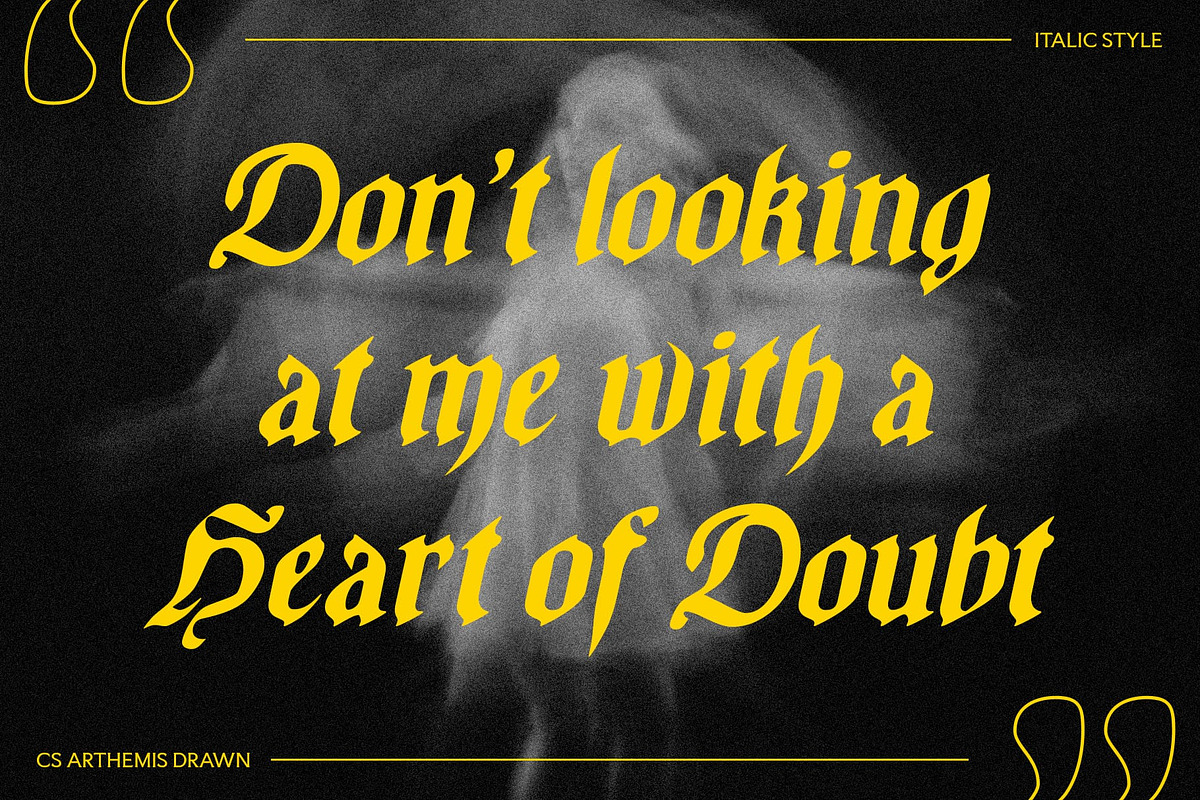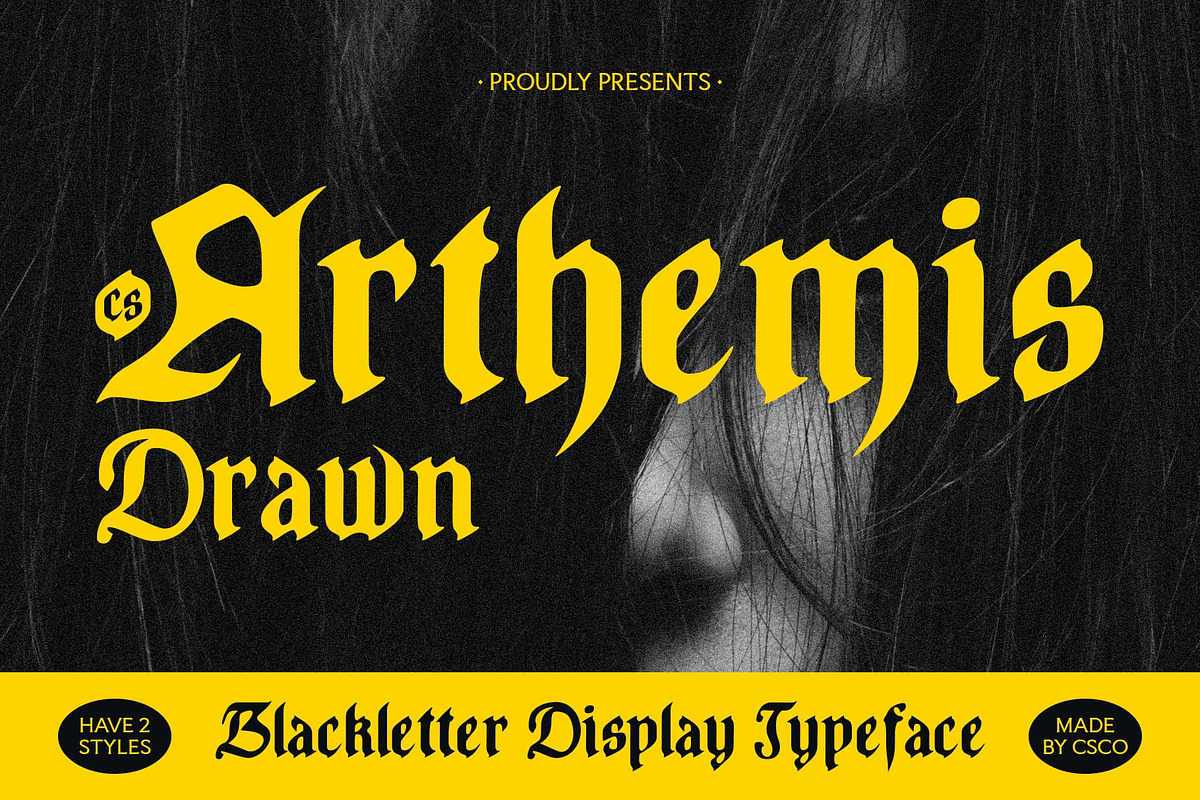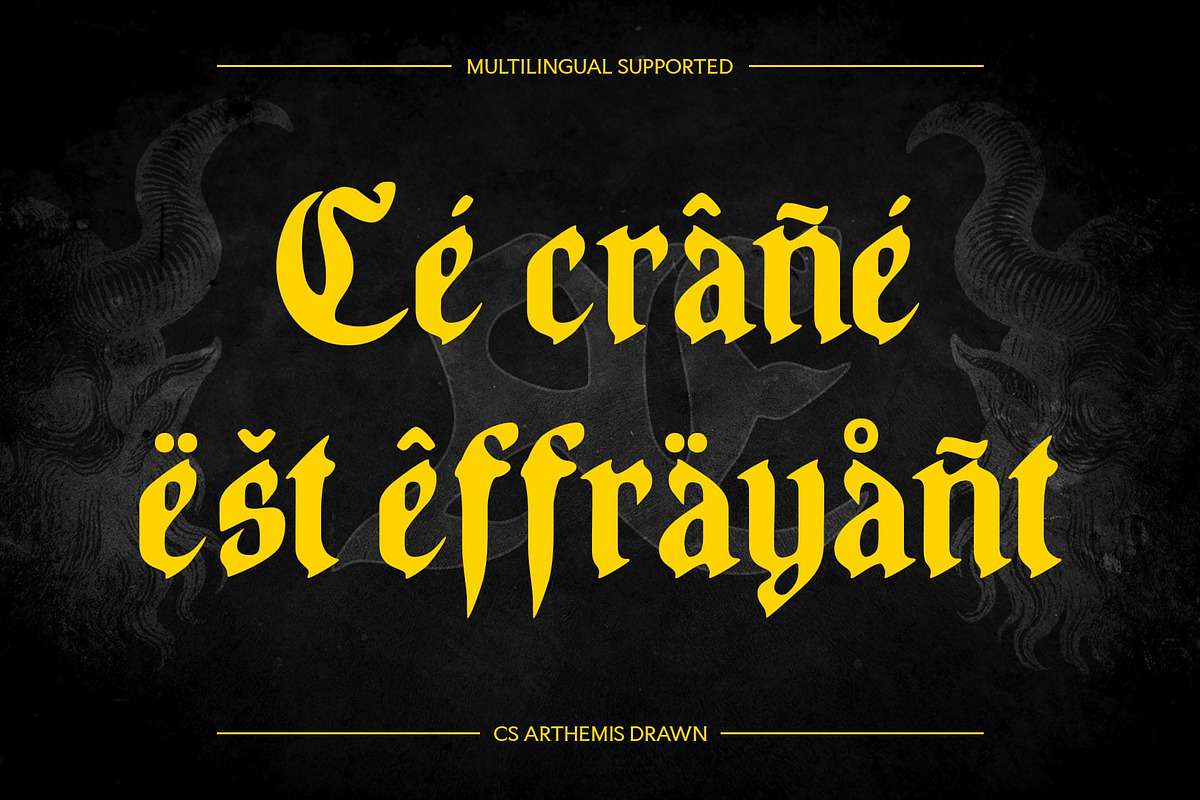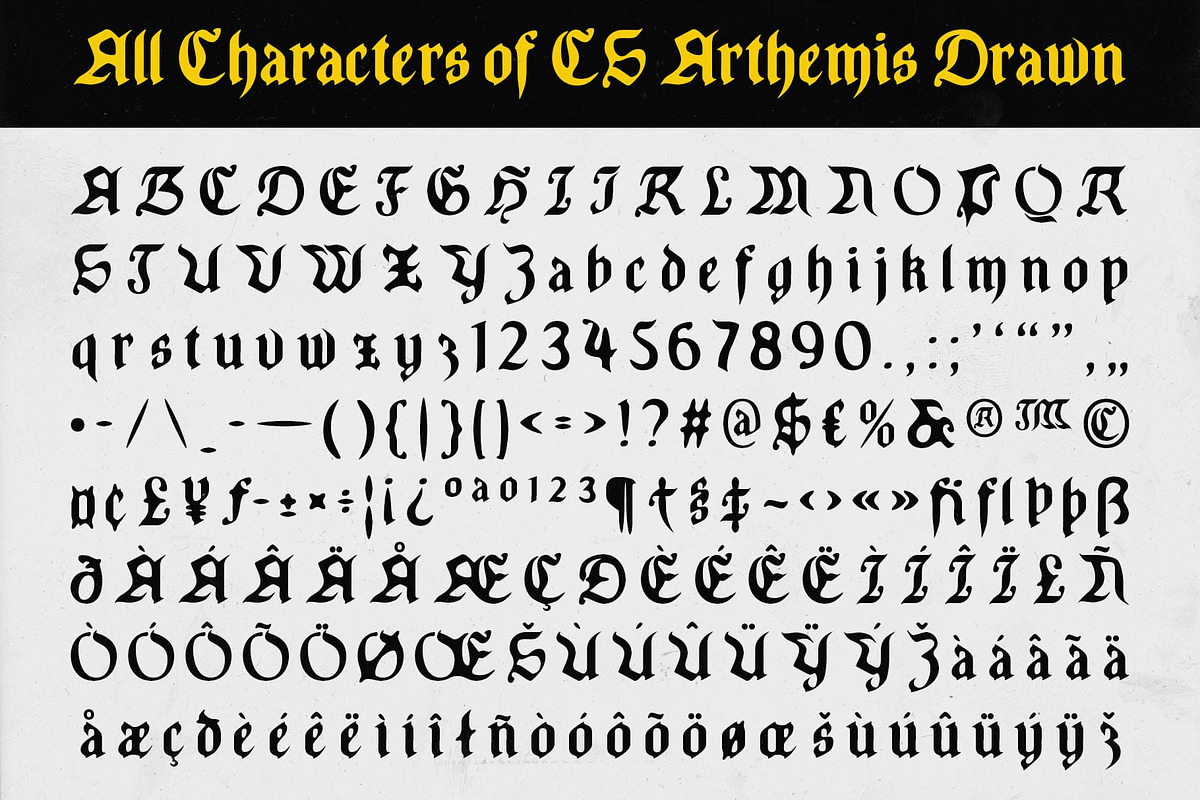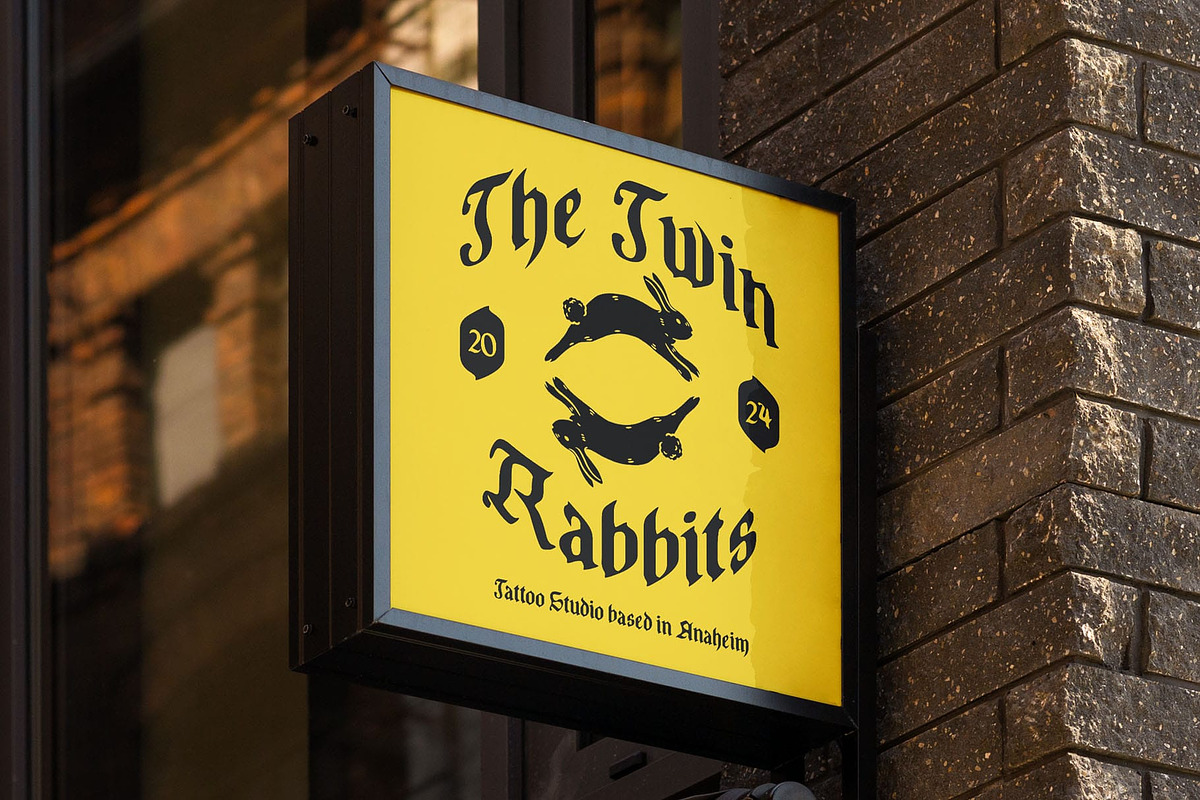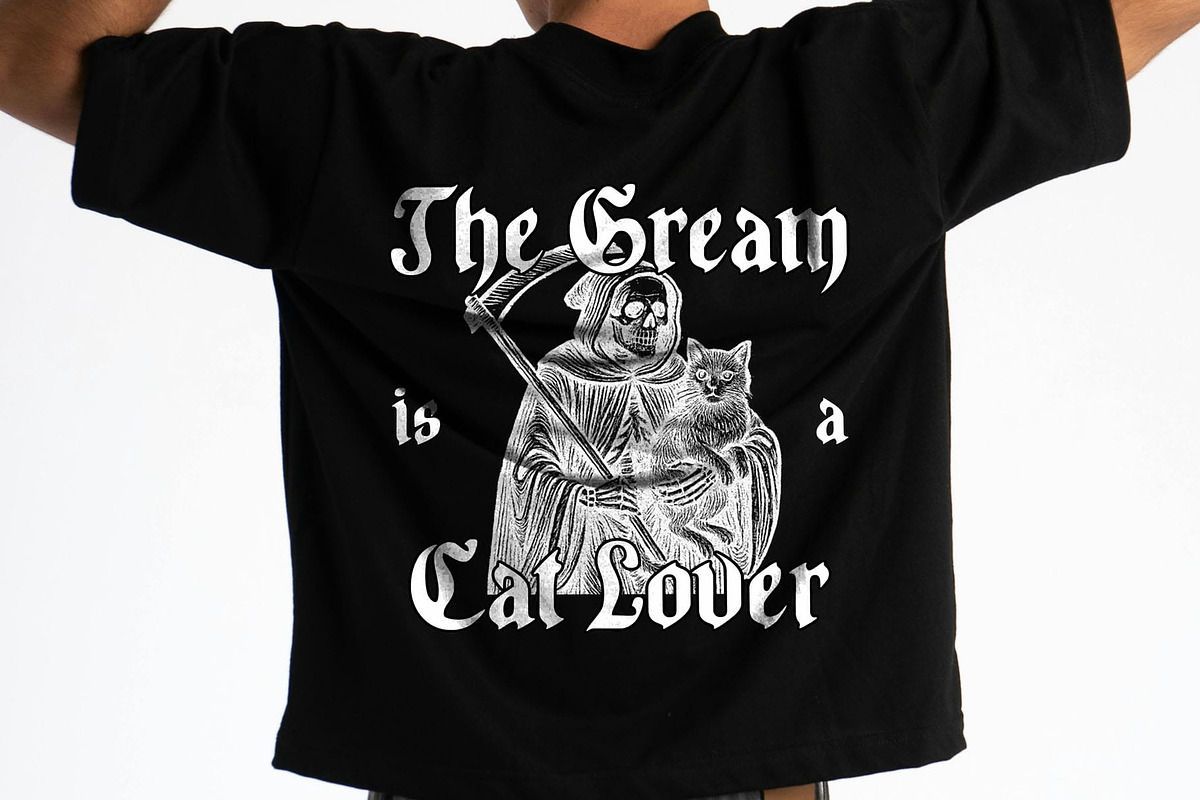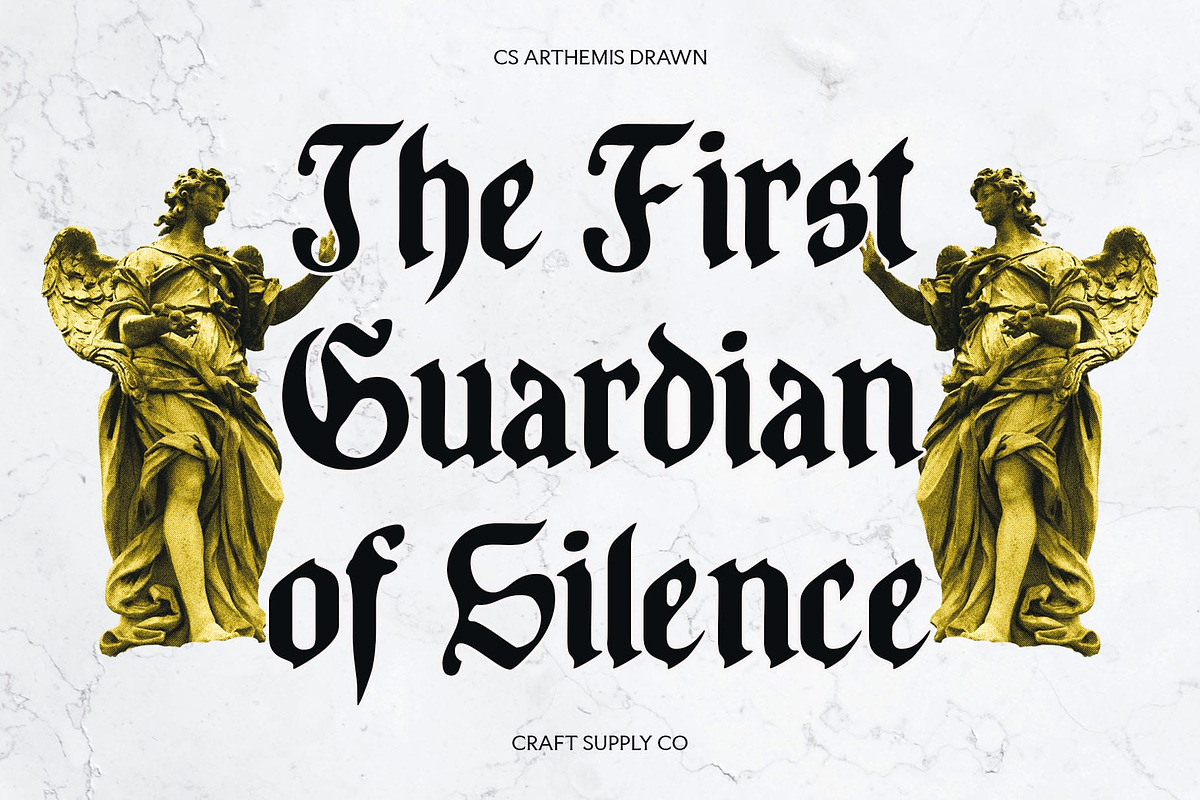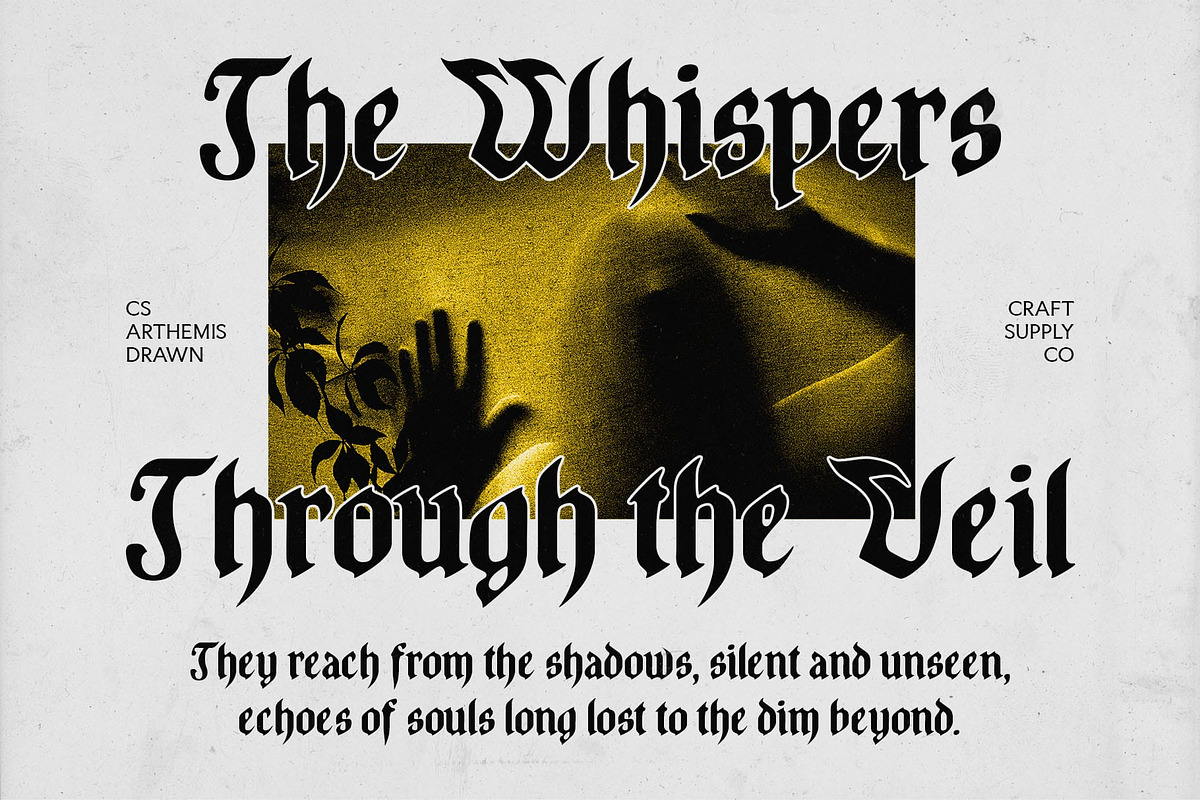
CS Arthemis Drawn
CS Arthemis Drawn – Bold Blackletter with Handcrafted Flair
Dramatic and Ornamental Blackletter Style CS Arthemis Drawn captures the timeless drama and intricate ornamentation of traditional blackletter fonts, featuring sharp, bold strokes and elaborate details that evoke a strong gothic presence. Its classic form makes a powerful statement, perfect for designs that demand attention, sophistication, and a touch of historical grandeur.
Handcrafted Drawn Effect for Organic Expression Enhanced with a drawn effect, this display font gains a unique handcrafted texture that softens its formal rigidity while adding depth, warmth, and personality. The organic imperfections and subtle irregularities bring an authentic, artistic vibe, beautifully blending classic elegance with modern creative expression.
Versatile Use for Bold and Artistic Projects This artistic font is perfectly suited for a wide range of bold, artistic, and character-rich designs. Whether used for music album covers, modern gothic posters, edgy branding, or alternative visual identities, this font creates a memorable and striking impression that stands out in any creative project.
A Perfect Fusion of Tradition and Modernity By combining the rich heritage of blackletter typography with a contemporary drawn style, this unique font offers designers a unique tool to craft visuals that are both rooted in tradition and refreshingly original. It’s ideal for those looking to evoke drama, artistry, and individuality in their work.